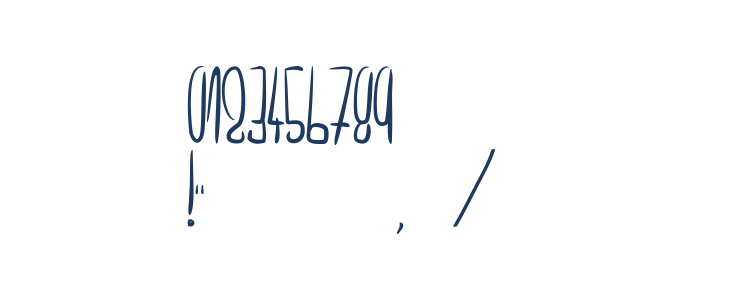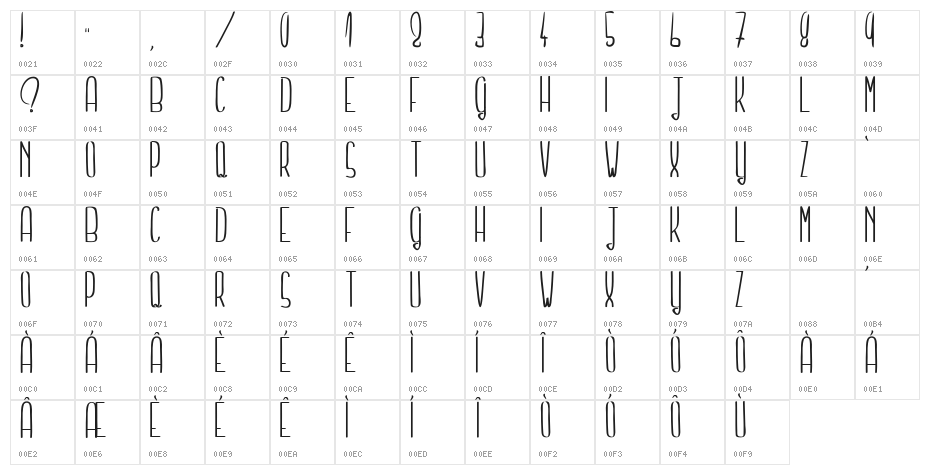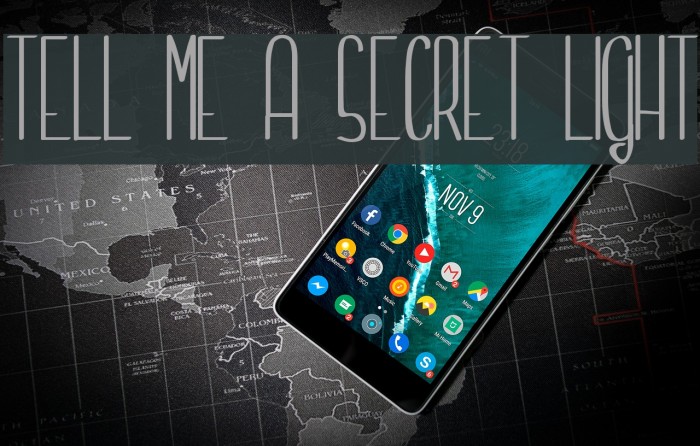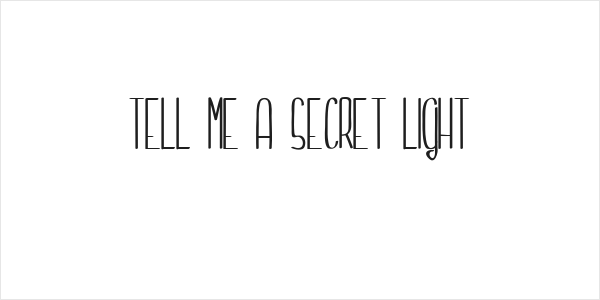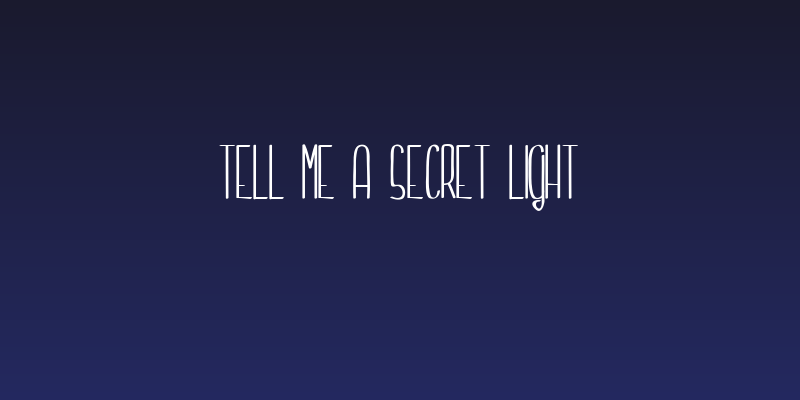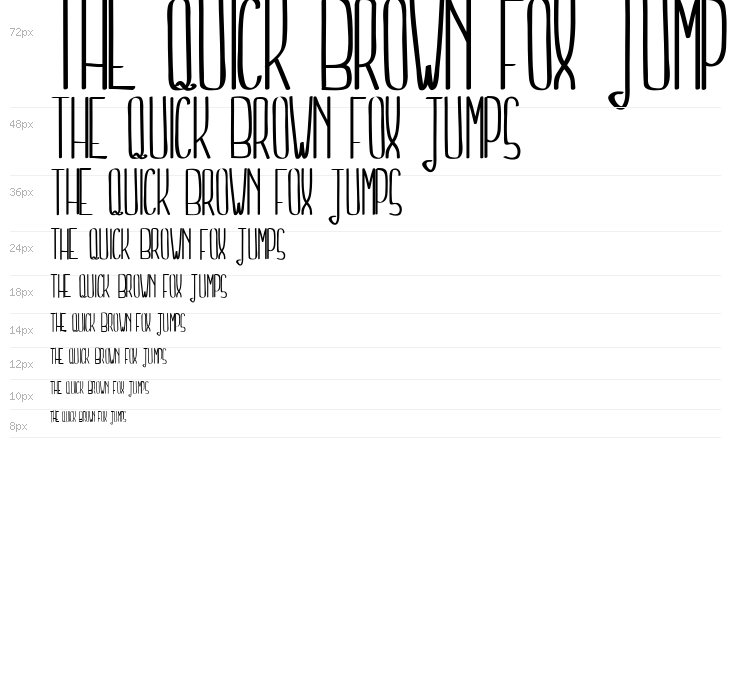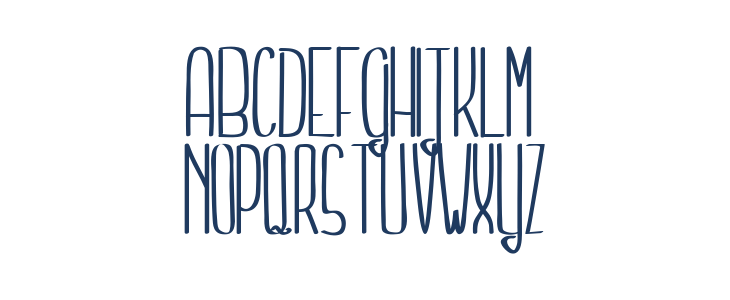
Tell me a secret light Font
Tell me a secret light Description
This font features an elongated and narrow design, characterized by its tall and slender letterforms. The strokes are consistent in width, giving it a uniform appearance. The characters are closely spaced, creating a compact look. The overall style is modern and sleek, with a touch of elegance due to its vertical emphasis. The font's clean lines and minimalistic approach make it suitable for contemporary design projects. It includes a full set of uppercase and lowercase letters, numbers, and a selection of special characters, maintaining a cohesive aesthetic throughout.